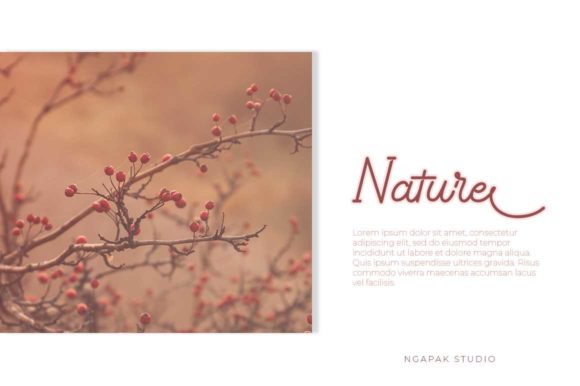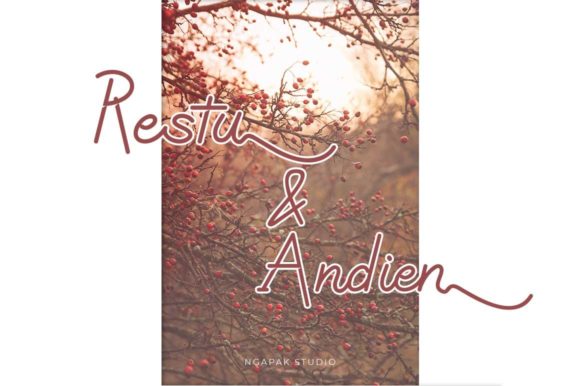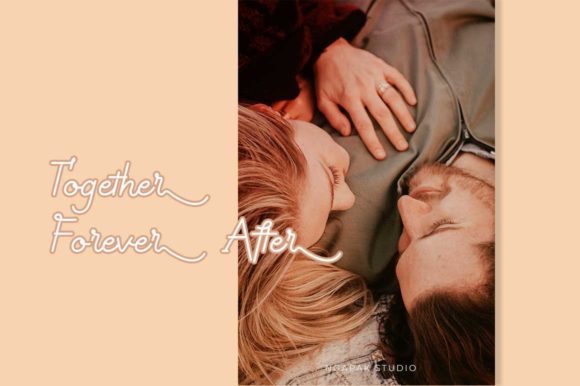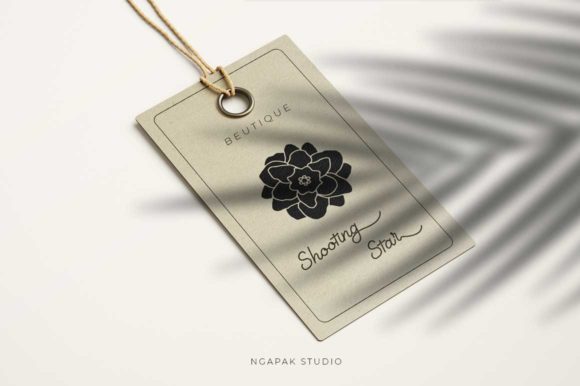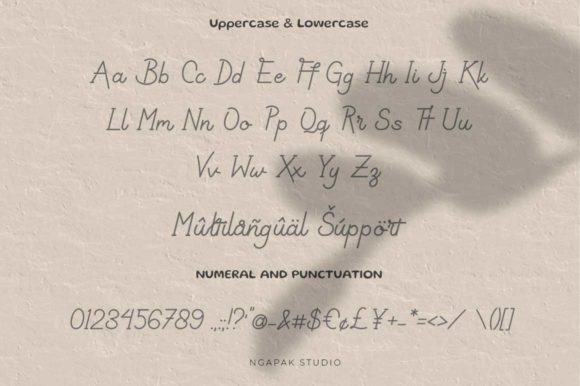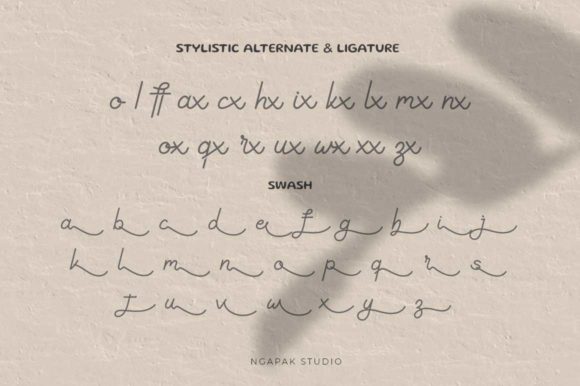
Affriel Font: Elevate Your Designs with a Touch of Vintage Elegance
In the world of typography, a font can make all the difference in the aesthetic and feel of a design. For those seeking a touch of vintage elegance and sophistication, the Affriel Font is an exceptional choice. This beautiful, well-balanced, and vintage-styled script font is defined by smooth curves, making it perfect for fashion branding, editorial designs, and a myriad of creative projects.
What Makes Affriel Font Stand Out?
Affriel Font boasts several features that set it apart from other fonts in its category. Here are a few key highlights:
- Beautifully Crafted: Affriel is designed with meticulous attention to detail, ensuring that every letterform and swash is elegant and visually appealing.
- Well-Balanced: The font strikes a perfect balance between vintage flair and modern readability, making it versatile for various design applications.
- Vintage Styled: With its classic script style, Affriel brings a nostalgic feel to any project, evoking a sense of timelessness and sophistication.
- Smooth Curves: The defining characteristic of Affriel is its smooth, flowing curves that add a touch of grace and fluidity to text.
Perfect for Fashion Branding and Editorial Designs
Fashion branding and editorial designs require fonts that are not only stylish but also convey a certain level of sophistication and elegance. Affriel Font fits the bill perfectly. Its vintage script style can add a luxurious feel to brand names, taglines, and editorial content, setting your designs apart in a crowded market.
For fashion brands, Affriel can be used to create stunning logos, product labels, and marketing materials that exude class and refinement. In editorial designs, such as magazines, blogs, and newspapers, Affriel can be employed to add a touch of elegance to headings, titles, and pull quotes, enhancing the overall visual appeal of the publication.
Understanding the needs of designers and crafters, Affriel Font comes PUA (Private Use Area) encoded. This encoding means that accessing all the glyphs and swashes is straightforward, allowing for greater flexibility and creativity in your designs.
With PUA encoding, you can easily access:
- Glyphs: A variety of glyphs are available, including alternate letters, ligatures, and ornaments, which can be used to add depth and uniqueness to your designs.
- Swashes: Swashes are decorative strokes that can be added to letters to enhance their appearance. Affriel’s swashes can be used to create beautiful, flowing text that captures attention.
Tips for Using Affriel Font Effectively
To get the most out of Affriel Font, consider the following tips:
- Pair with Complementary Fonts: For body text, pair Affriel with clean, sans-serif fonts to create contrast and ensure readability.
- Experiment with Sizes: Use Affriel in various sizes to create visual hierarchy and emphasize key points in your design.
- Play with Swashes: Don’t be afraid to experiment with the swashes and glyphs available in Affriel. They can add a unique touch to your designs.
Affriel Font is a versatile and elegant script font that can elevate your designs with its vintage charm and sophisticated feel. Whether you’re working on fashion branding, editorial designs, or any creative project, Affriel offers the perfect blend of beauty, balance, and functionality. Its PUA encoding makes it easy to access a wide range of glyphs and swashes, allowing you to push the boundaries of your creativity.
Discover the potential of Affriel Font and bring a touch of vintage elegance to your designs. With its smooth curves, well-balanced style, and extensive features, Affriel is poised to become a favorite among designers and crafters looking to create stunning, high-quality work.